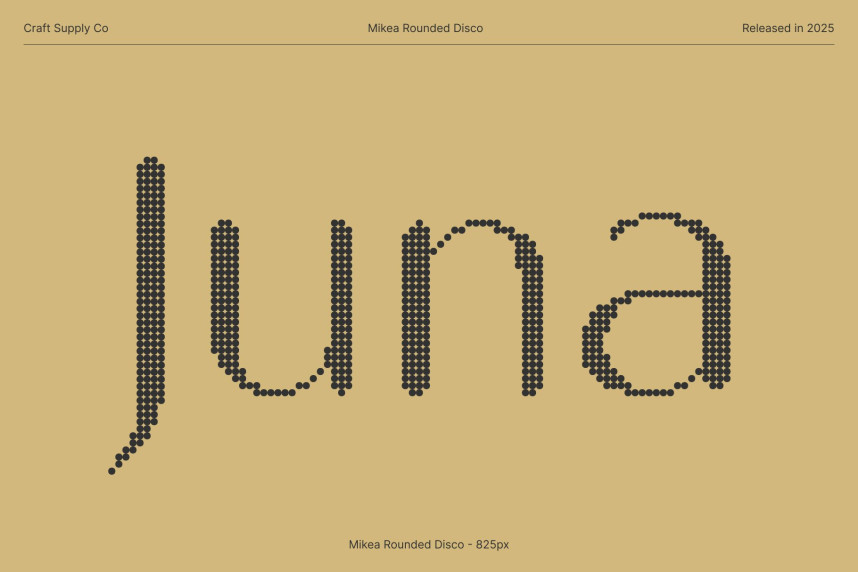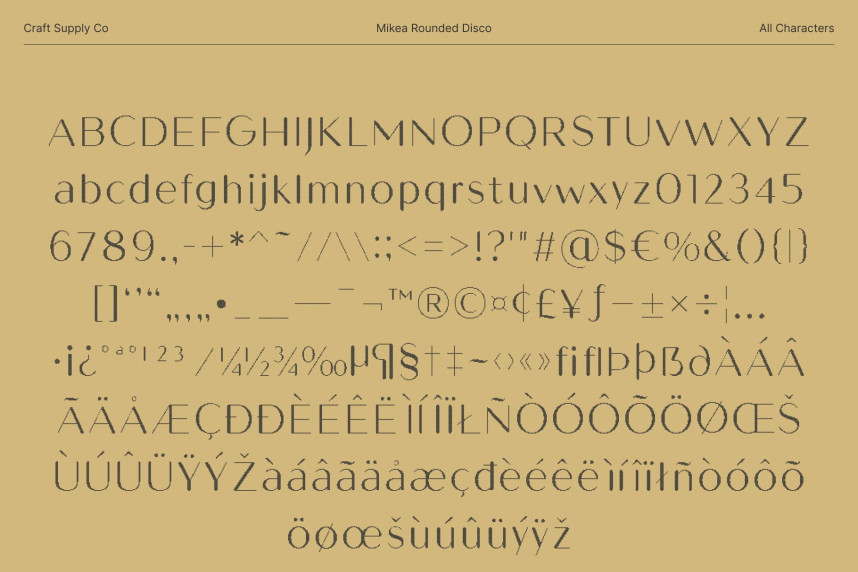
Mikea Rounded Disco Font
Mikea Rounded Disco Font – Luxury Sans Serif with Glamorous Shine Refined Elegance with a Modern Twist. This is a luxury sans serif font crafted to exude refinement, exclusivity, and polished modernity. Its smooth rounded shapes deliver a clean, high-end aesthetic, while the added disco effect introduces a glamorous shimmer that elevates every letterform. This perfect balance of sophistication and visual sparkle makes the font stand out in upscale, contemporary design work.